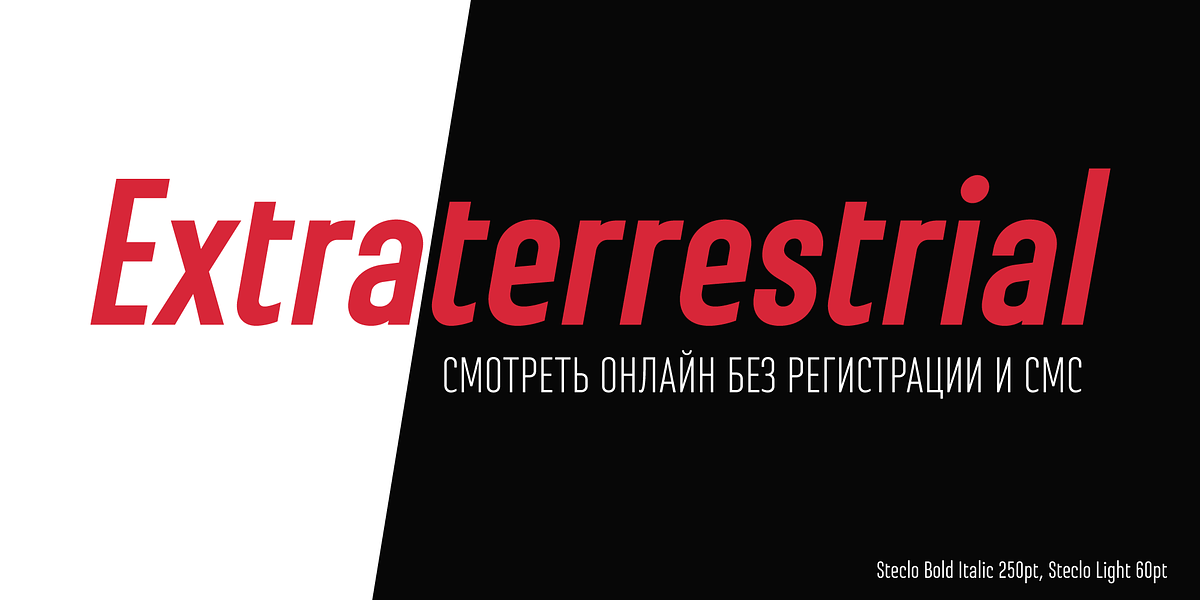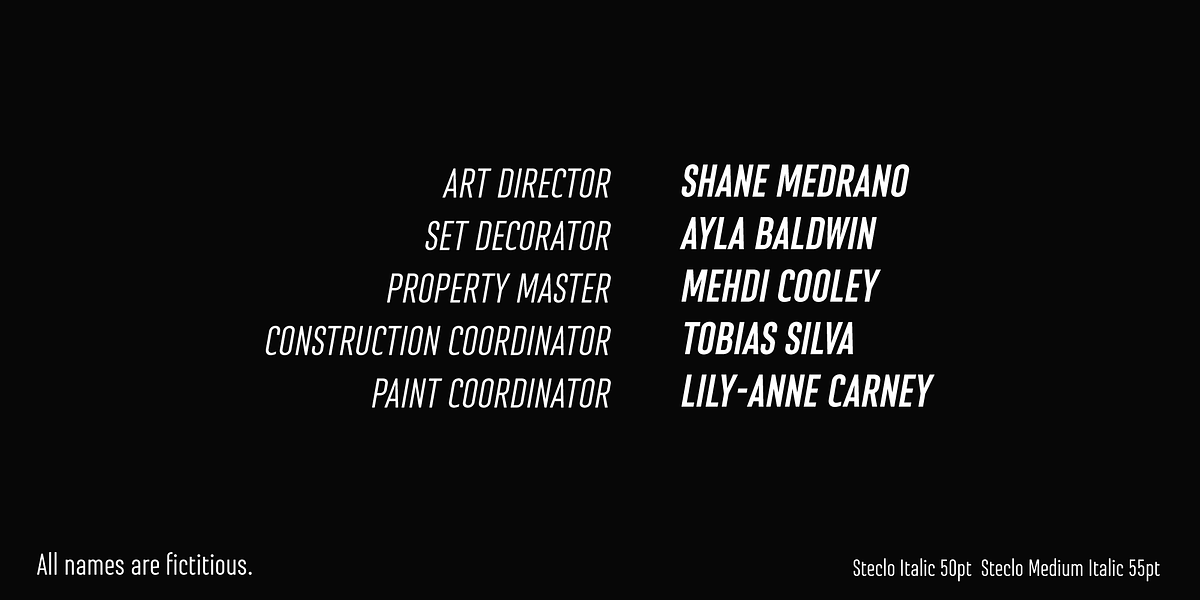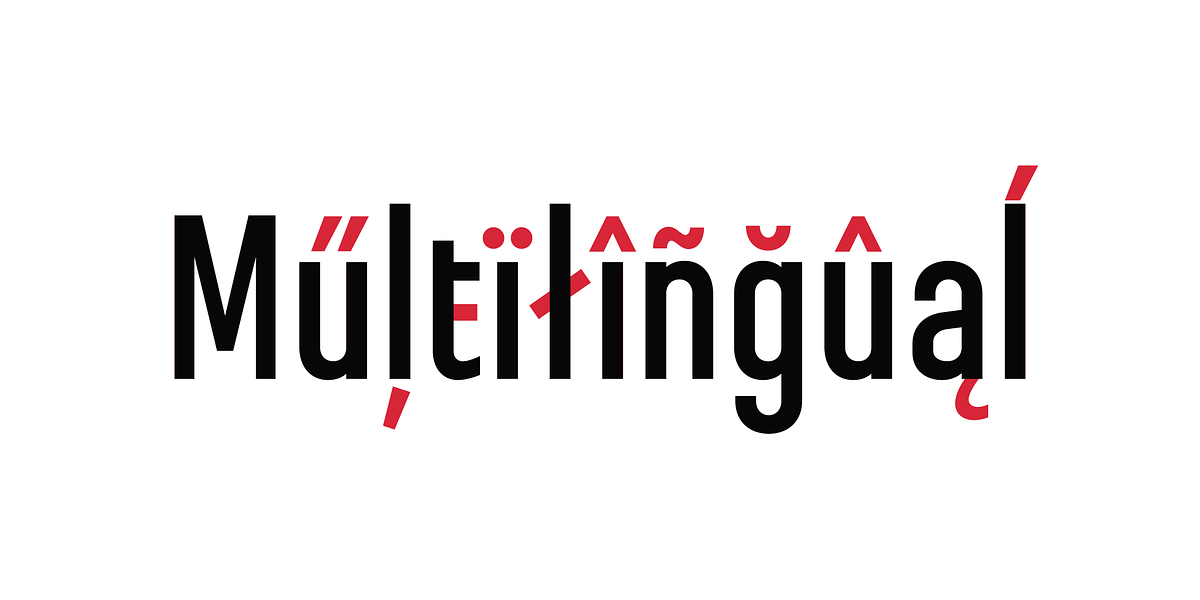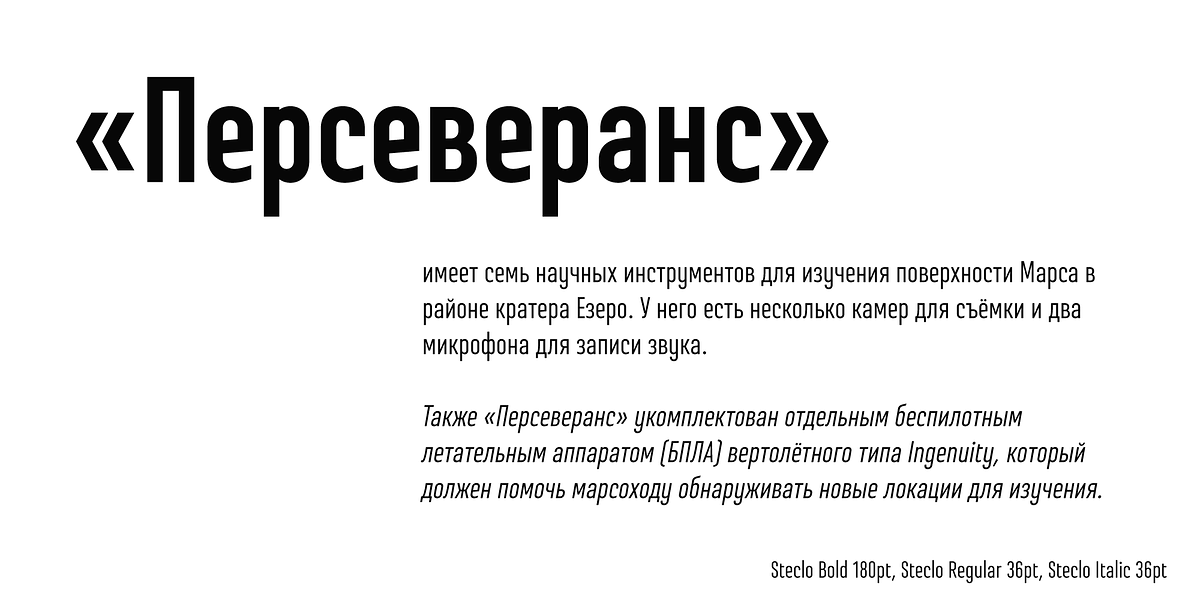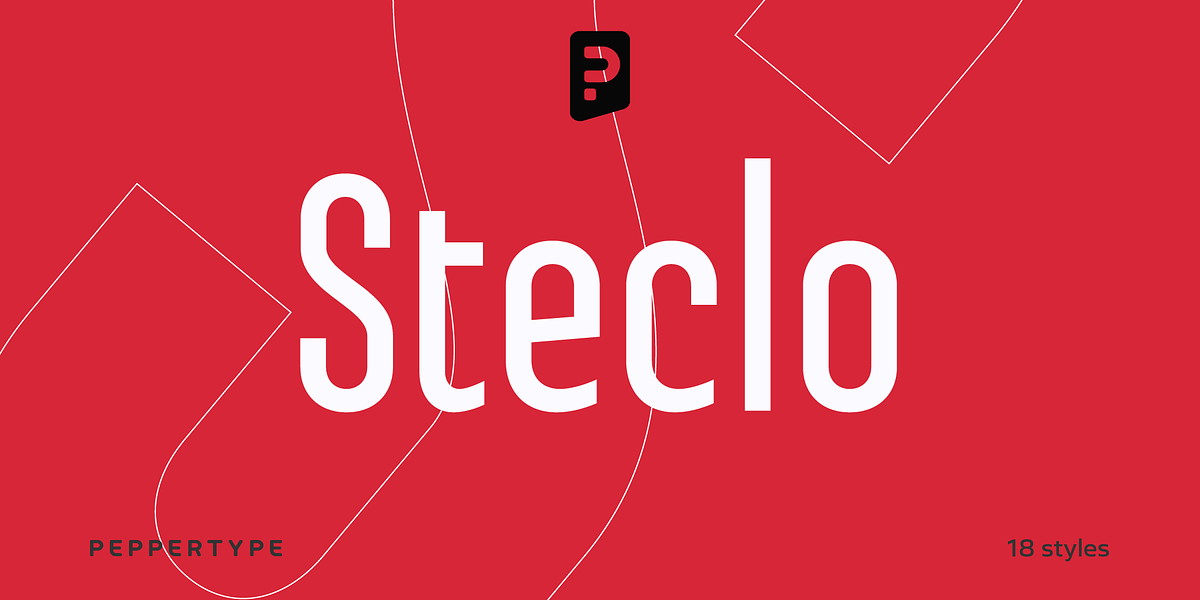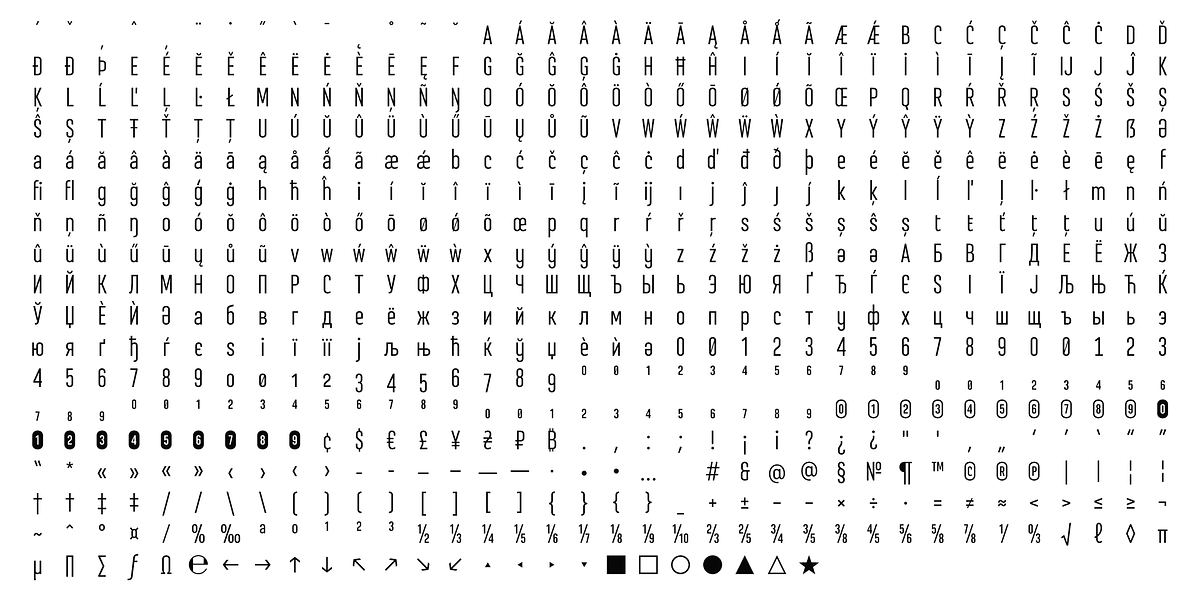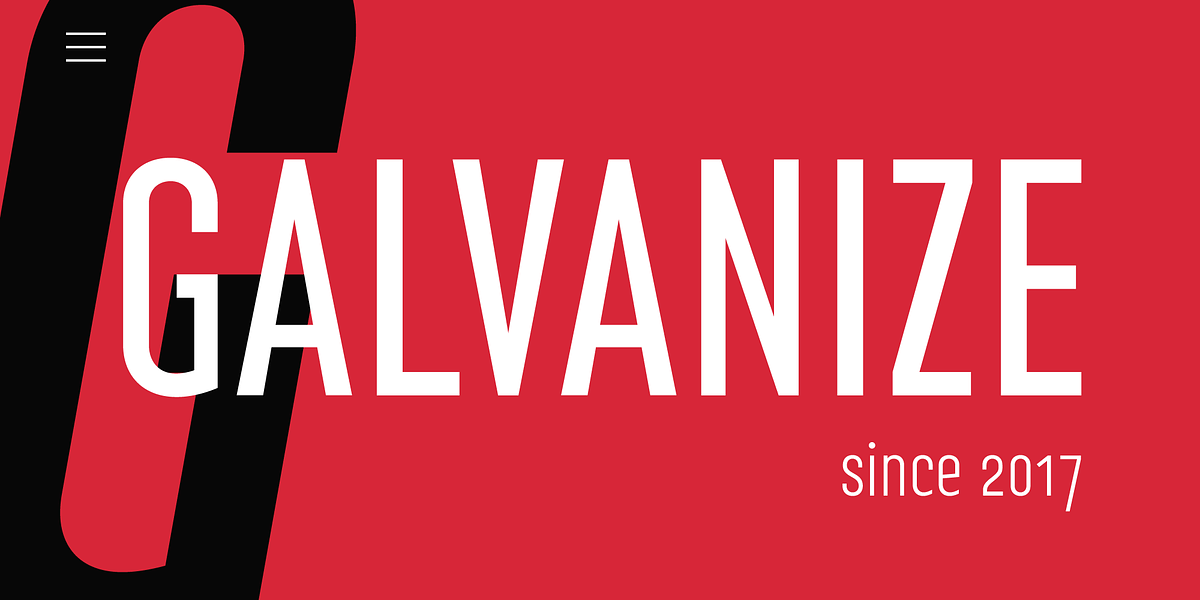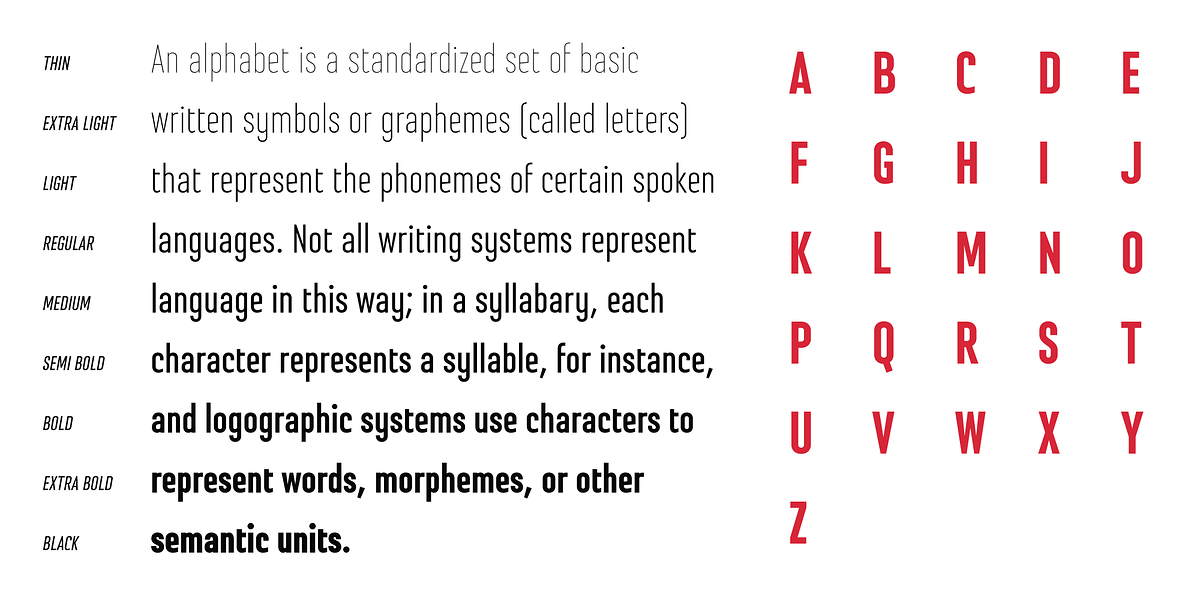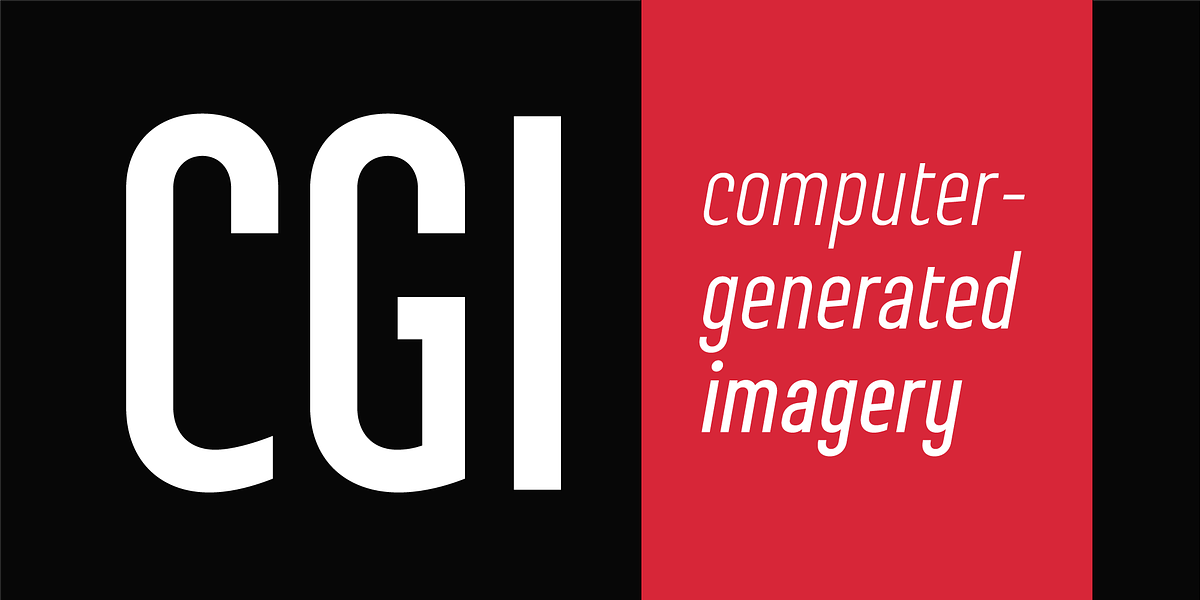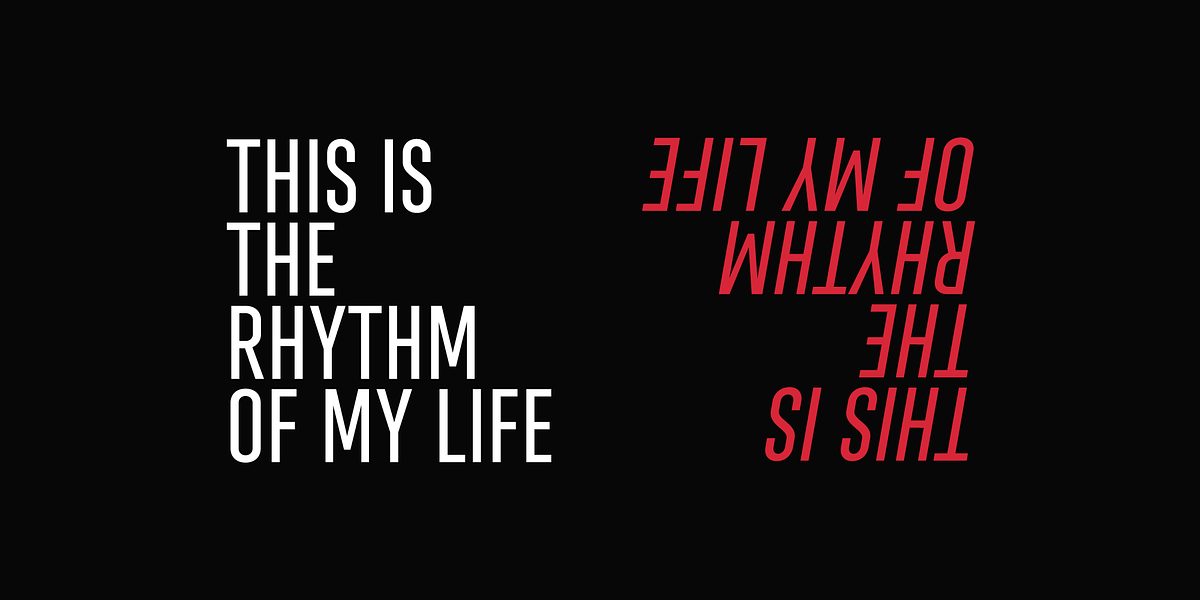
Steclo
Steclo is a geometric sans-serif typeface designed for display purposes. Its narrow width and monolinear construction give it a sharp, modern look. The font comes in nine weights from thin to black, as well as corresponding italic versions. It supports a wide range of languages, including pan-European Latin and basic Cyrillic.